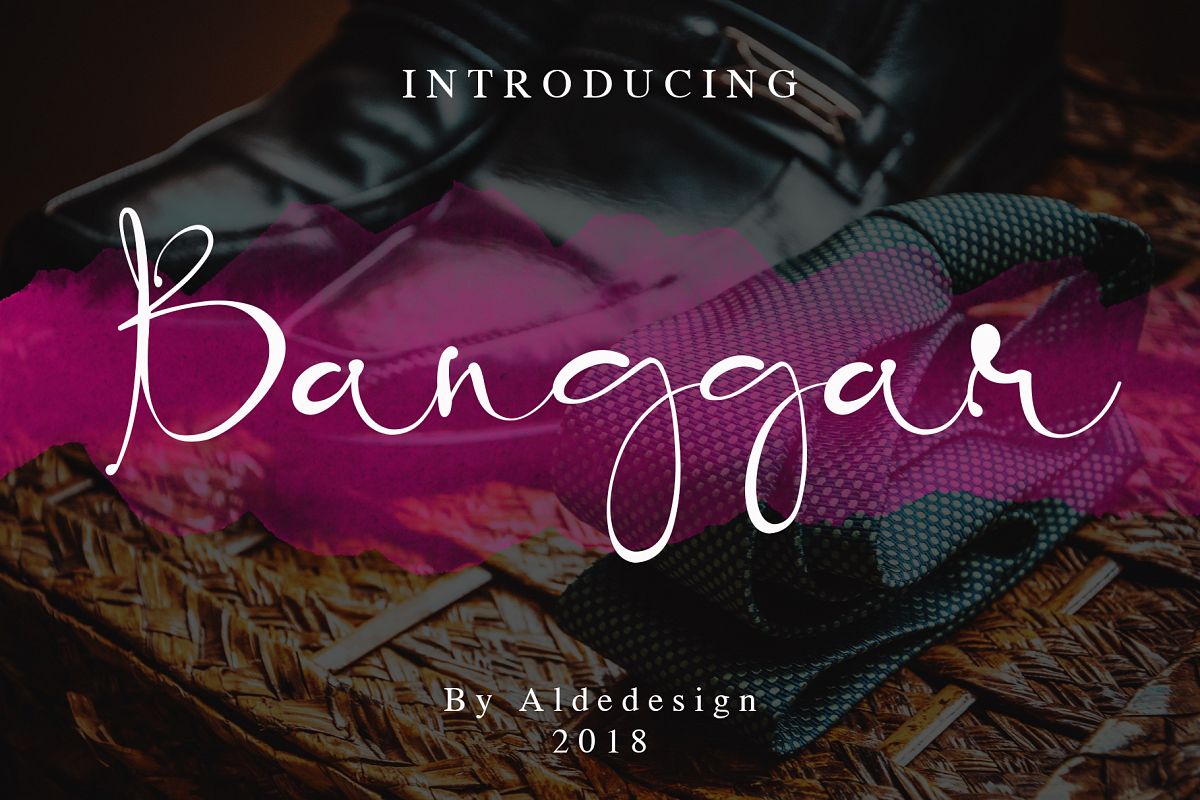
Banggar Signature Font
Banggar Signature Font is a font with simple and classy taste, comes with regular and slant versions.
We keep this font looks classy, readable, elegant, stylish, catchy and absolutly easy to use.
Banggar Signature Font  is the great choice for watermark on photography, signature or signature logo design, album cover, business card, quotes, and many other design project.